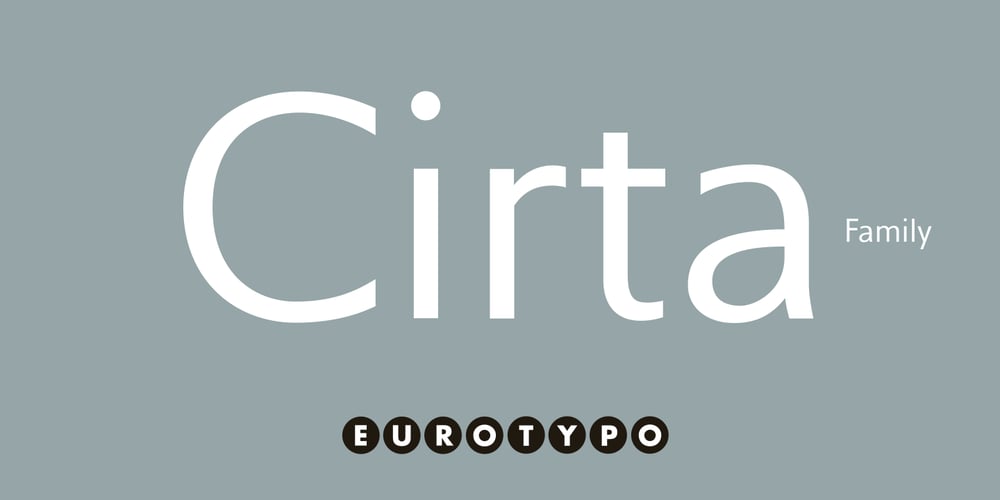
Cirta Font Family was designed by Olcar Alcaide and published by Eurotypo. Cirta contains 10 styles and family package options. Cirta is a versatile sans-serif font family featuring five weights along with corresponding italic styles. The uppercase letters exude a strong character, drawing inspiration from the proportions of ancient Roman letterforms. This results in a varied rhythm, where some letters appear wide while others are narrower, thus enhancing readability by differentiating characters and breaking monotony. On the other hand, the lowercase letters feature medium-length ascenders and descenders relative to the x-height. These formal characteristics are intended to enhance legibility. The font family also includes alternate glyphs for standard and discretionary ligatures, as well as numeral sets such as numerator, denominator, superscript, and subscript. Additionally, it offers mathematical symbols for various mathematical applications.